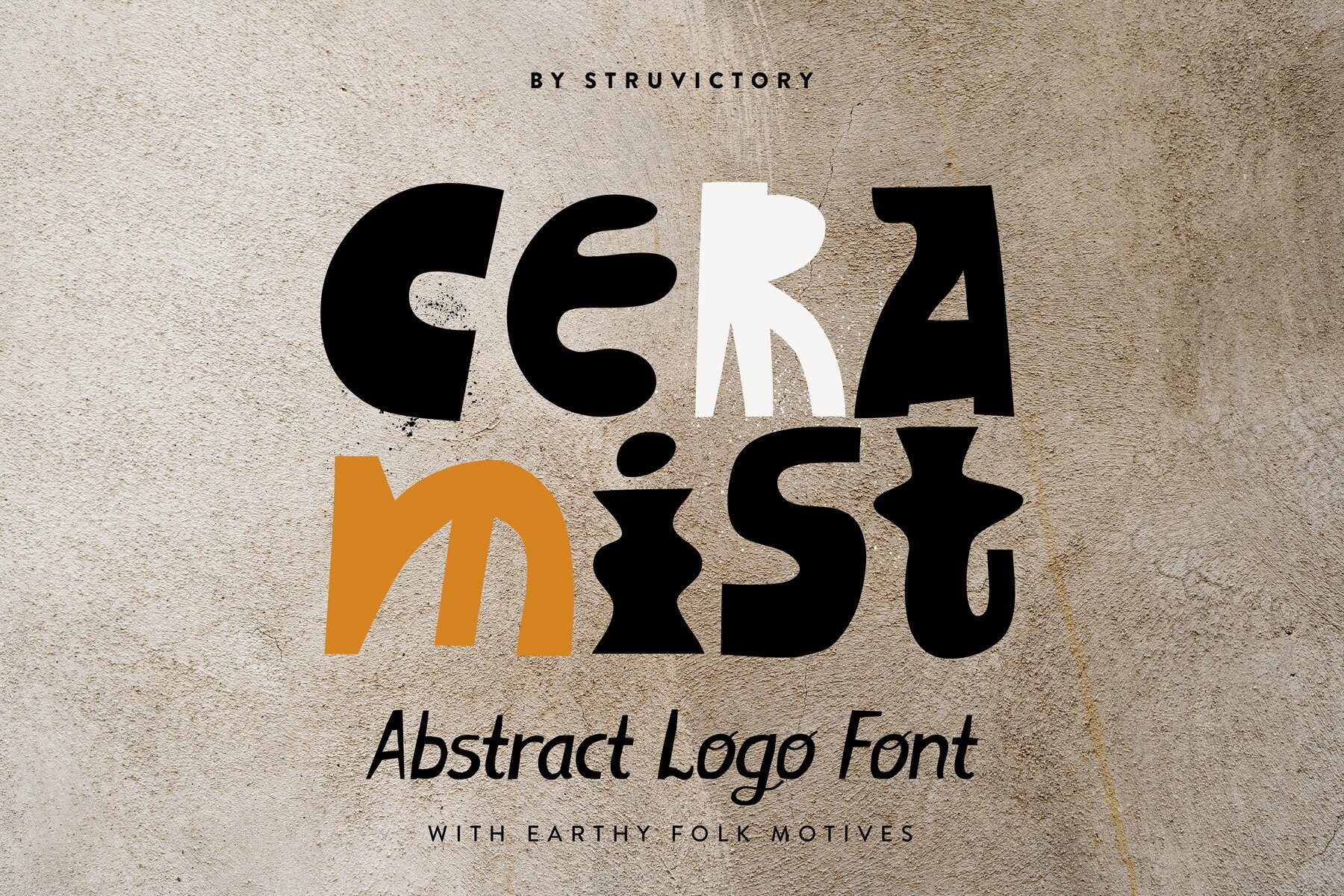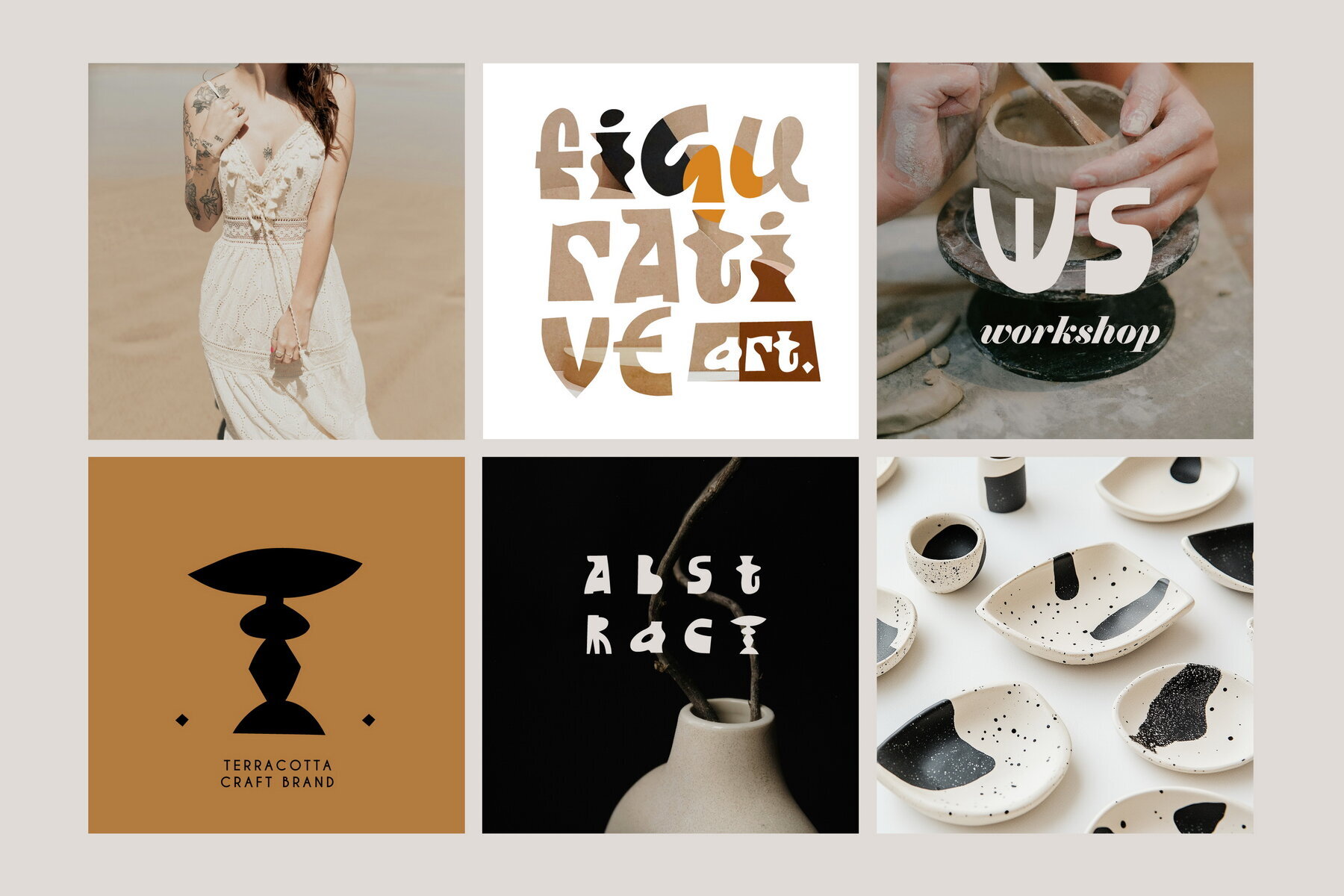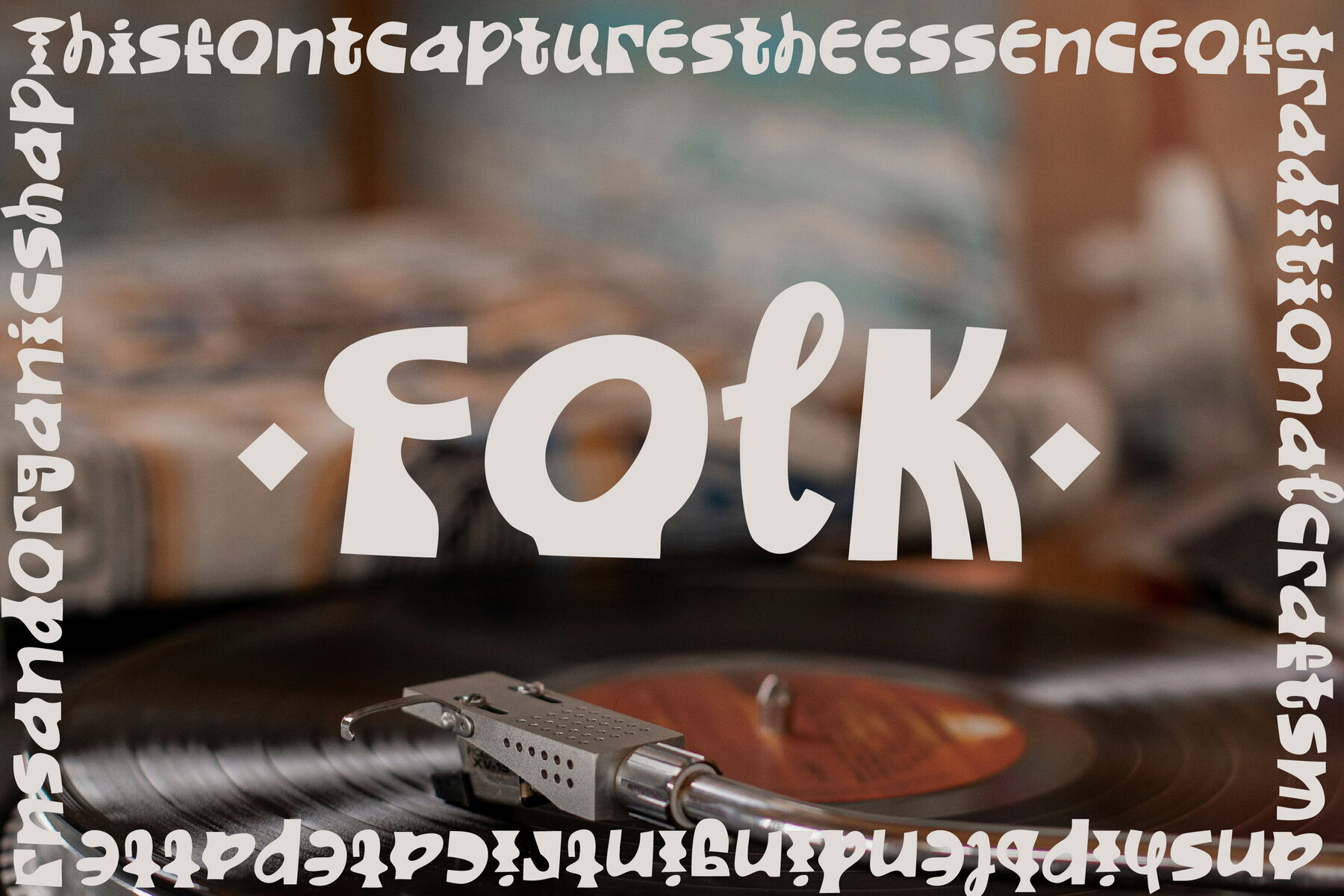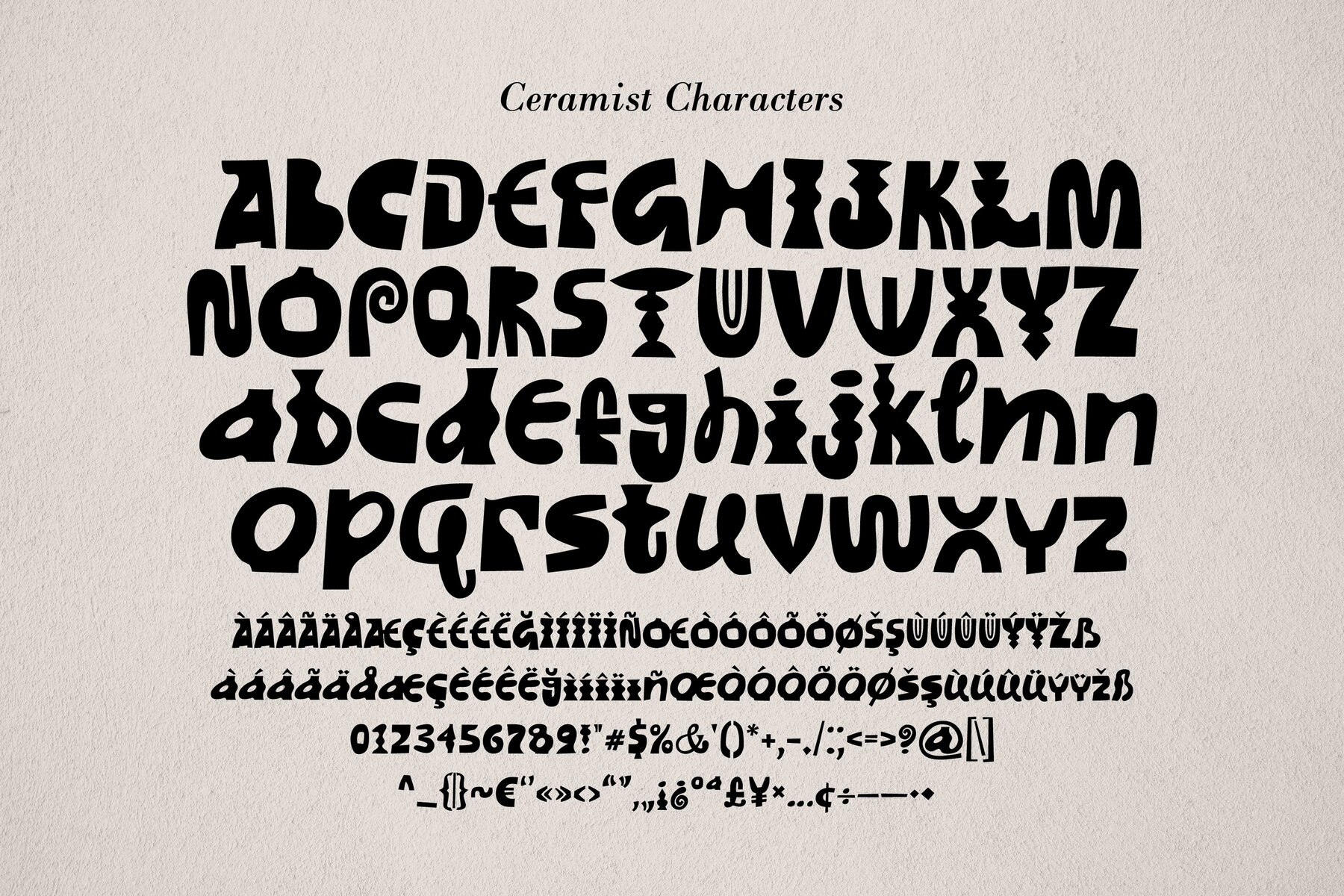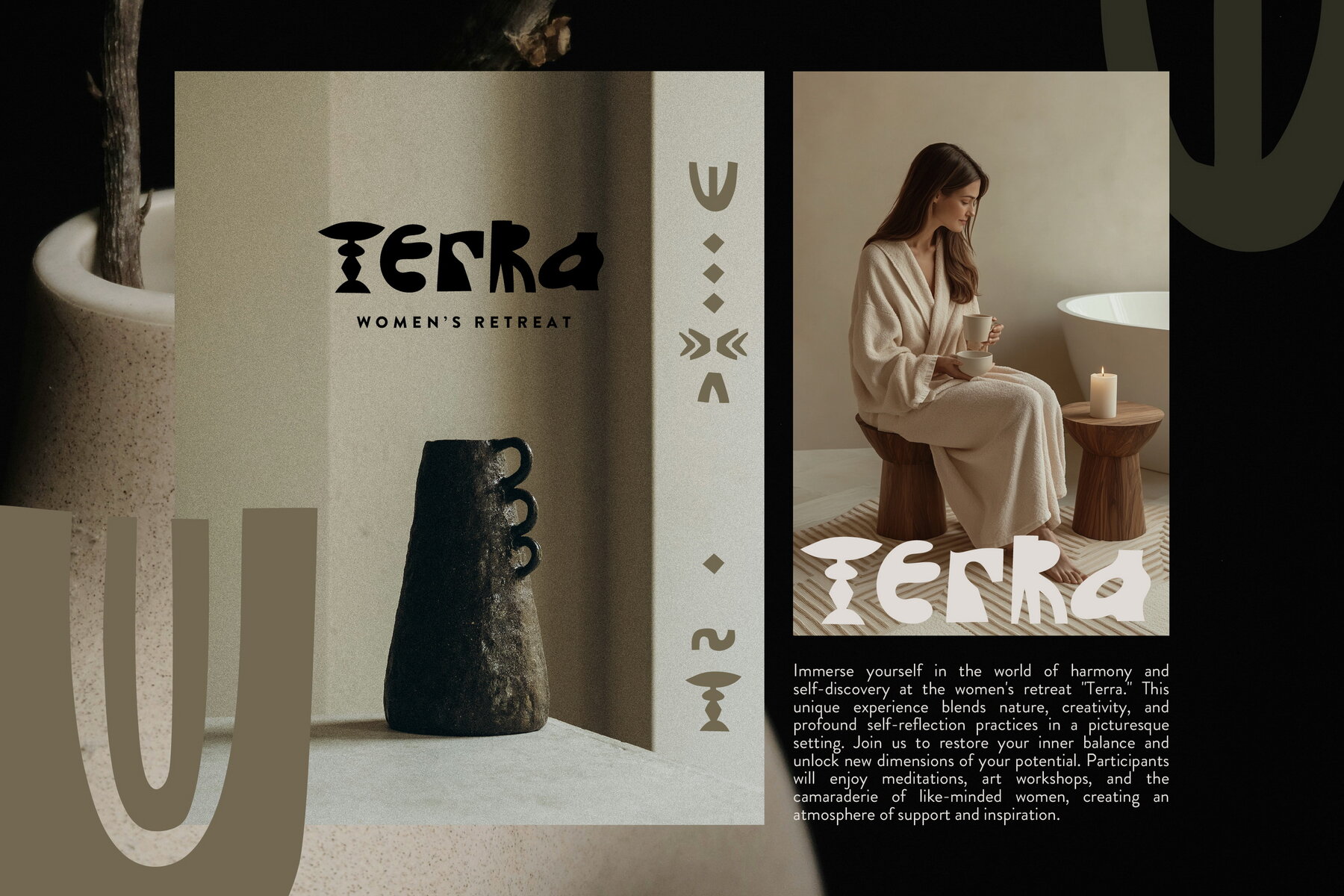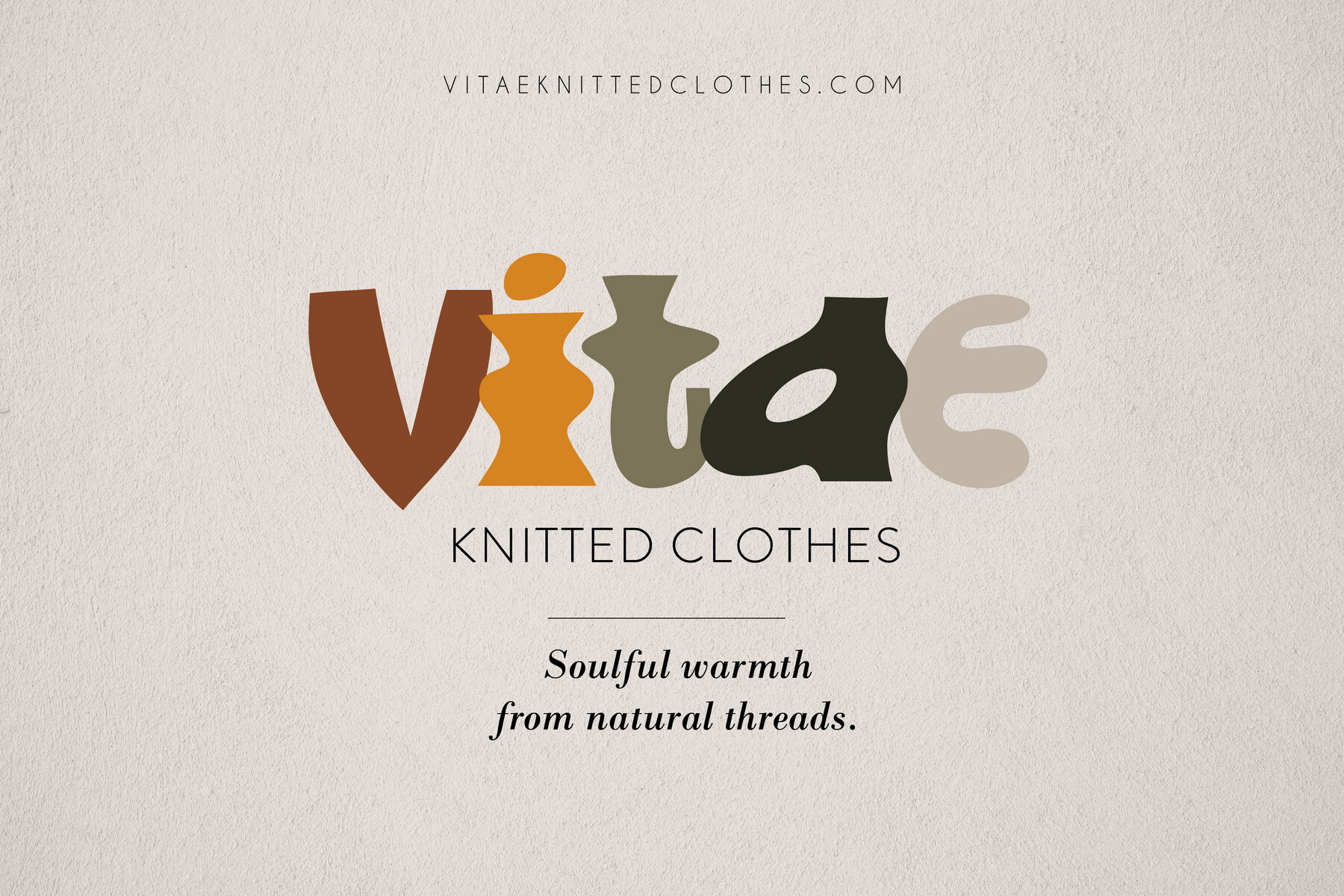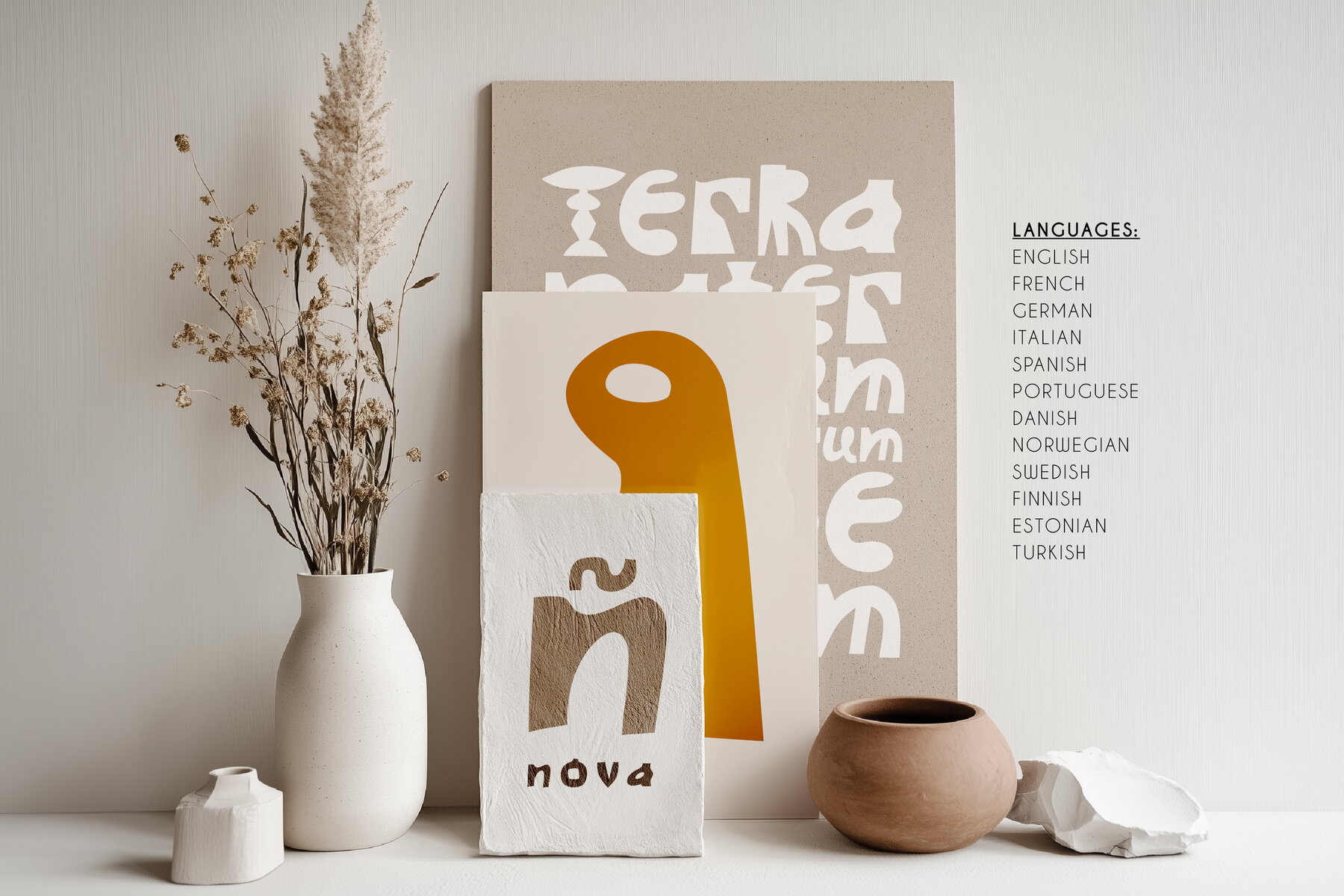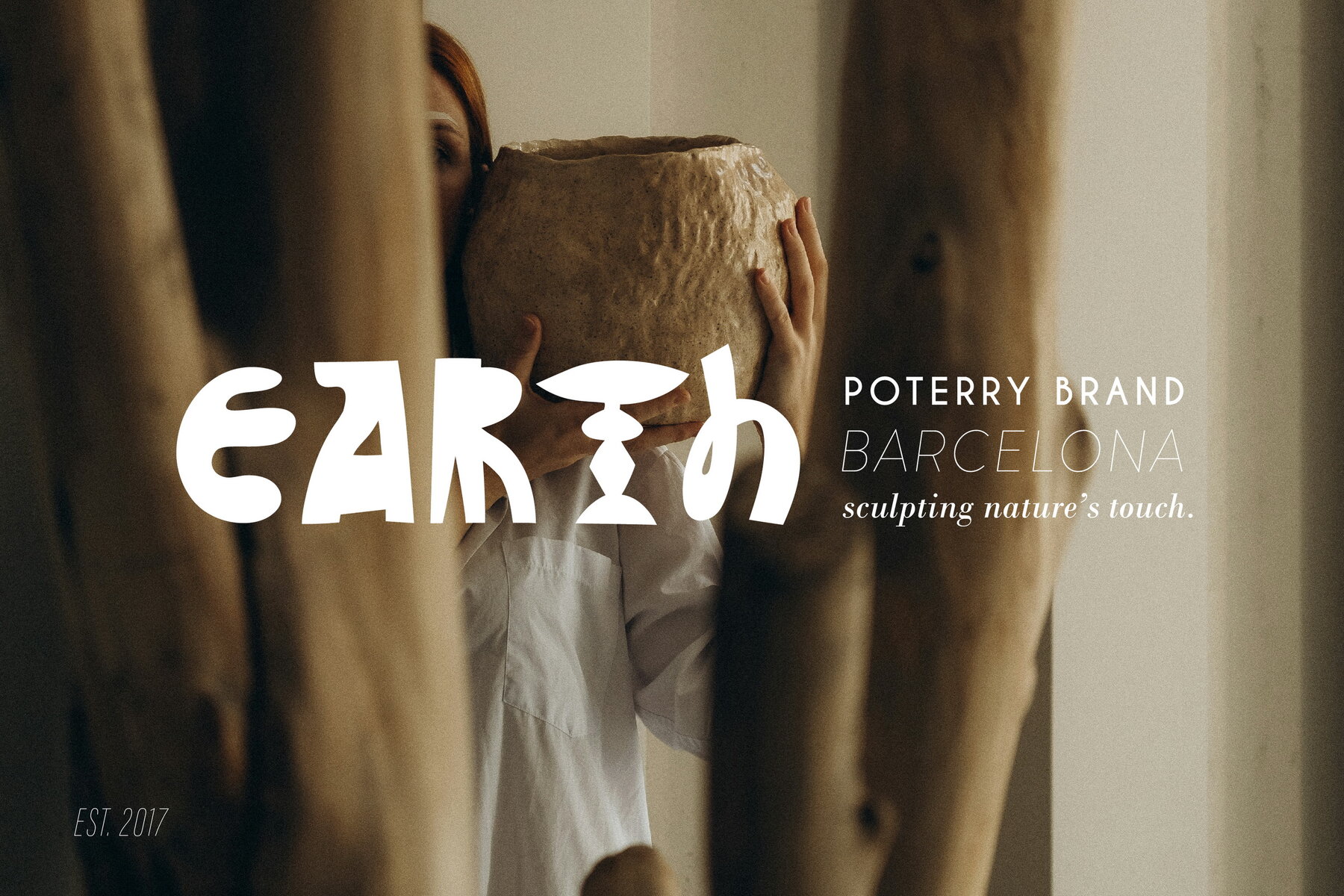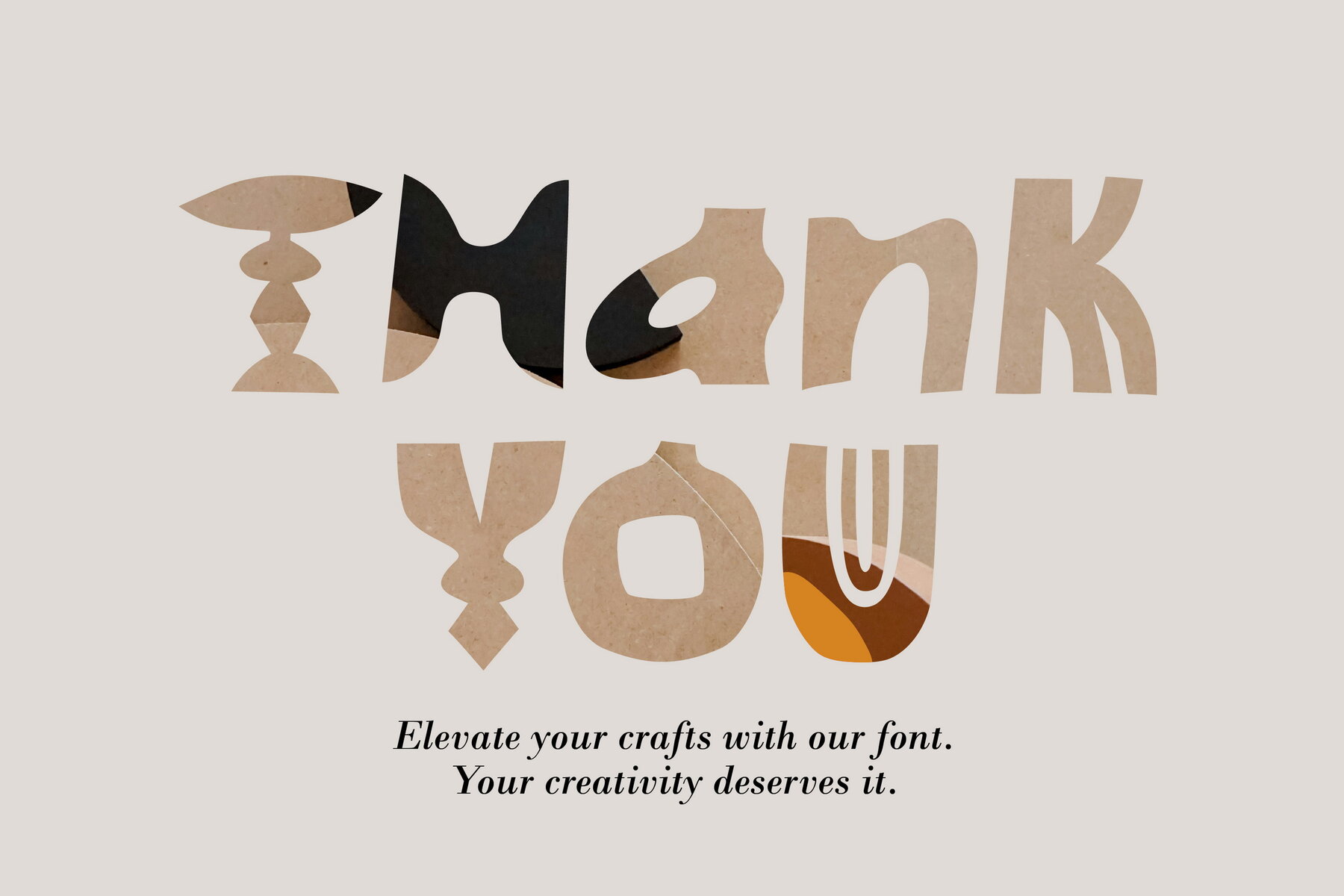
Ceramist Font
Ceramist Abstract
Ceramist is an exquisite abstract folk-style font that captures an earthy elegance and creative flair, making it an ideal choice for modern craft businesses, branding, fashion posters, and logo design. Each letter is meticulously stylized to add distinct character to your projects, ensuring that your designs stand out.
The versatility of Ceramist extends to its extensive language support, accommodating most Latin-based languages, thereby broadening its applicability across diverse design needs. Whether crafting a unique logo or designing striking fashion posters, this font offers the perfect blend of style and functionality.